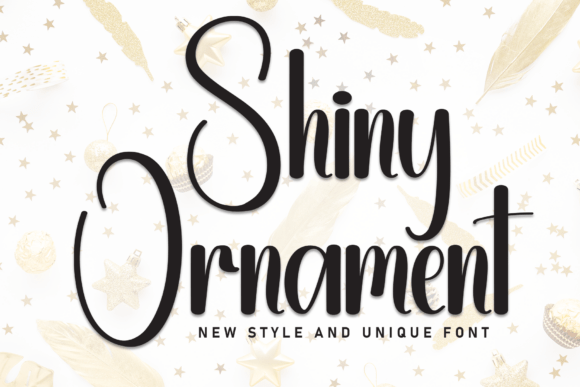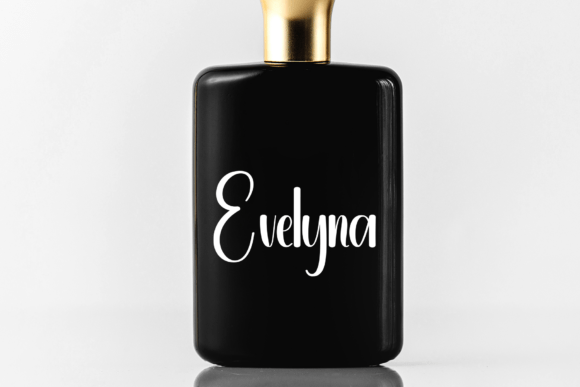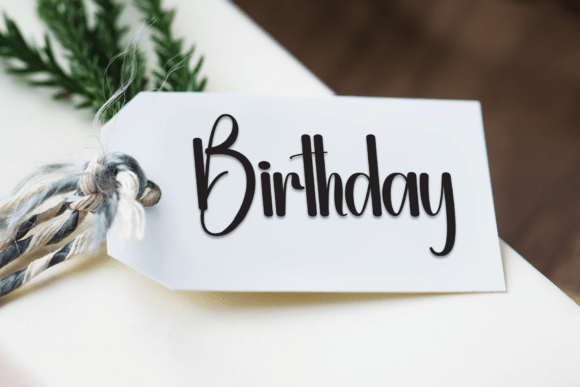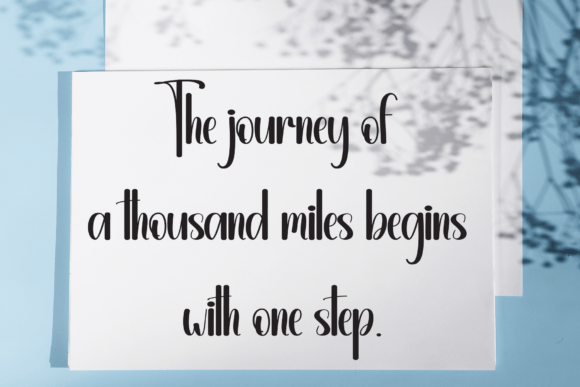
Shiny Ornament Font
About the Shiny Ornament Font
Get ready to be inspired by Shiny Ornament Font, a fresh and dynamic typeface for modern creators. Shiny Ornament is a stylish handwritten script font that blends modern elegance with a playful touch. Its fluid strokes and charming curves bring a personal feel to any design. Ideal for logos, packaging, and invitations, this typeface adds warmth, sophistication, and creativity to every project.
Shiny Ornament Font Usage Examples
Shiny Ornament Font Example